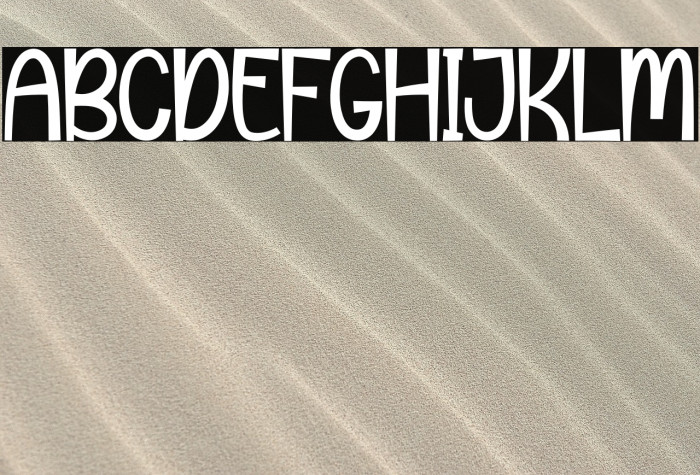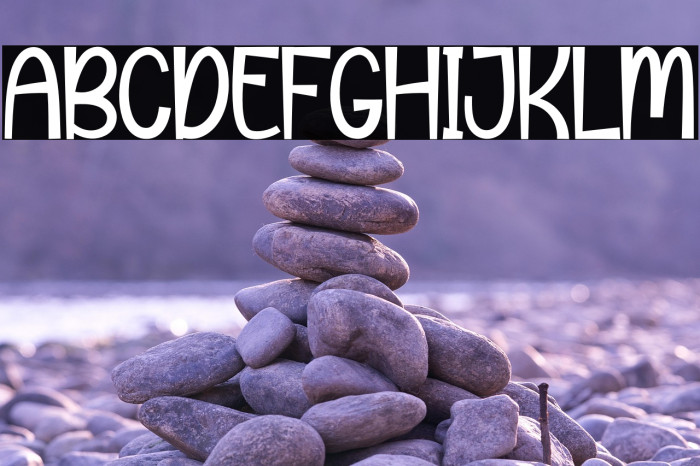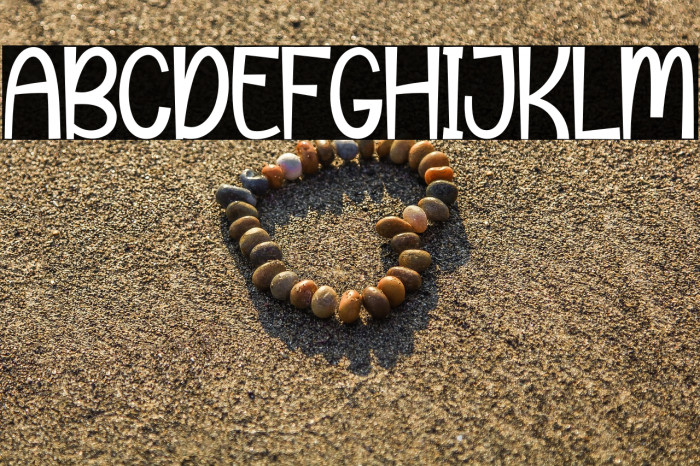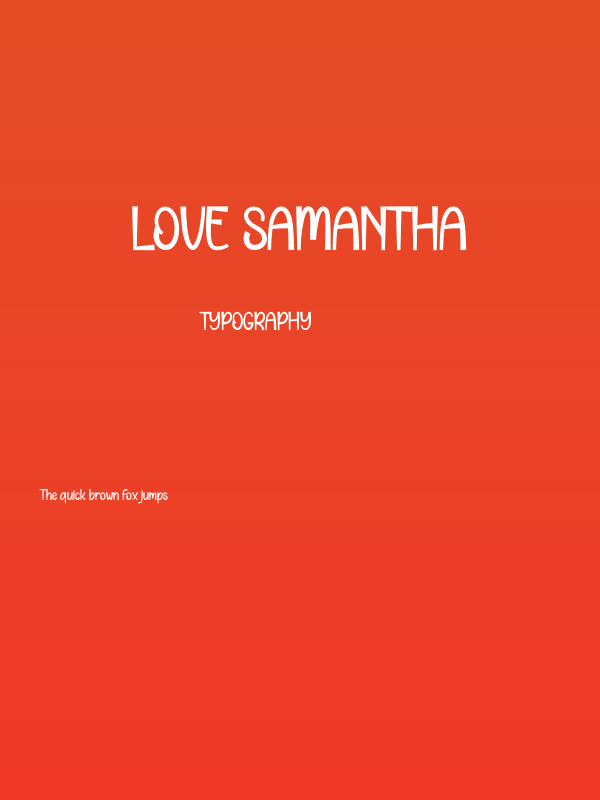
Love Samantha Font
Love Samantha Description
A playful and whimsical font with a handwritten style, featuring tall, narrow letters with a slight slant and rounded edges.
| Proposed Projects | Greeting cards, children's books, playful branding. |